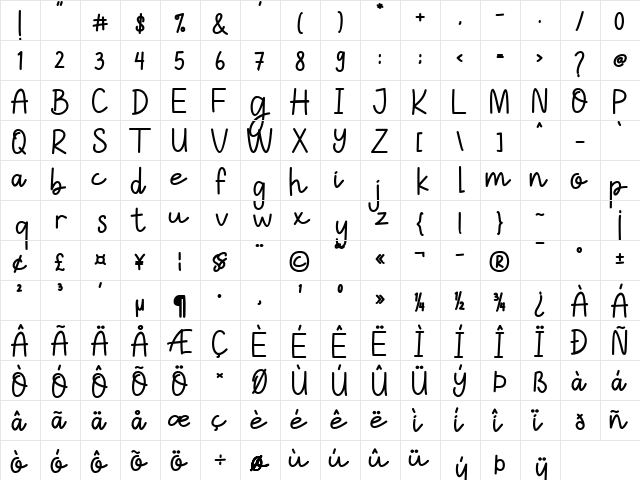
Sweet Charlie Regular
Design Context for Sweet Charlie Typeface
Sweet Charlie takes a measured approach to typography — its balanced proportions and neutral character make it a reliable workhorse for both digital and print work.